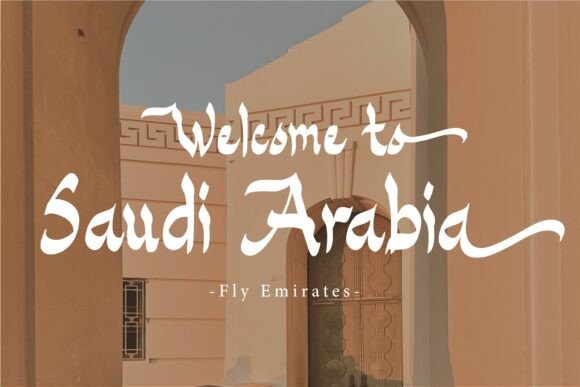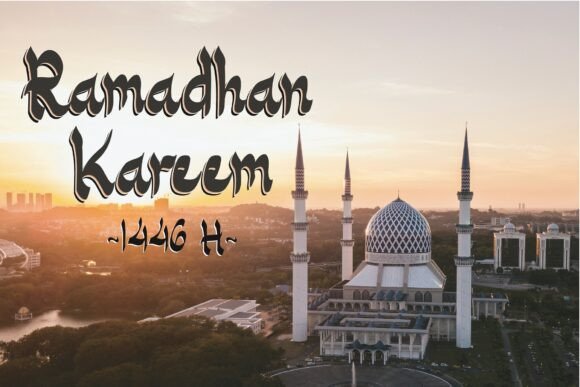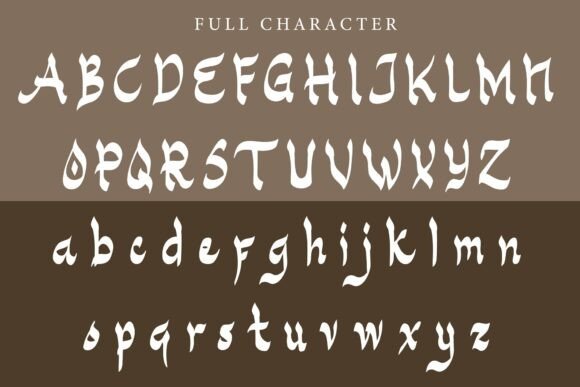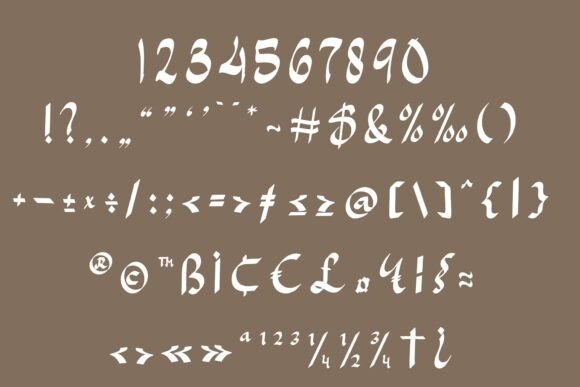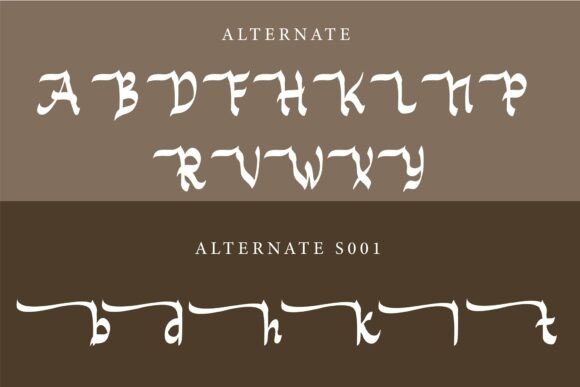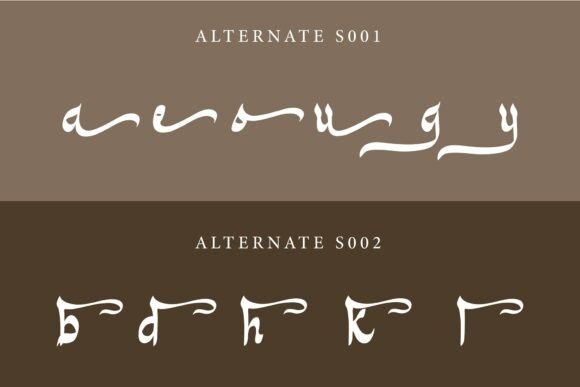
Introducing Arohmany: The Elegant Arabic Font that Bridges Past and Present
In the realm of typography, few fonts manage to capture the essence of cultural heritage while embracing modern stylistic elements. Arohmany, an exquisite Arabic font, stands out as a masterpiece that seamlessly blends classic Arabic calligraphy with contemporary design sensibilities. Crafted meticulously with a calligraphy pen, Arohmany presents an elegant fusion of past and present, making it an ideal choice for a wide range of creative ventures.
The Art of Arohmany: A Calligraphic Masterpiece
Arohmany’s creation is a testament to the art of Arabic calligraphy, a tradition that dates back centuries. The font’s designer has poured their expertise and passion into crafting each character with precision and elegance, using a calligraphy pen to bring the letters to life. The result is a font that exudes sophistication and refinement, perfect for projects that demand a touch of luxury and cultural depth.
A Perfect Blend of Classic and Modern
What sets Arohmany apart is its unique blend of classic Arabic characters and contemporary stylistic elements. The font’s classic roots are evident in its adherence to traditional Arabic calligraphy, while its modern twist is reflected in its clean lines, balanced proportions, and subtle stylistic flourishes. This blend makes Arohmany versatile and adaptable, suitable for a variety of design applications.
Endless Creative Possibilities with Arohmany
Arohmany’s elegance and versatility make it an excellent choice for a multitude of creative projects. Whether you’re designing eye-catching banners, trendy t-shirts, compelling photographic captions, engaging YouTube channels, or impactful advertisements, Arohmany is the perfect fit. Its unique charm and aesthetic appeal will elevate your designs, allowing you to communicate your message with style and sophistication.
Why Choose Arohmany for Your Designs?
- Elegant and Sophisticated: Arohmany brings an air of elegance and sophistication to any design, making it perfect for projects that demand a high level of refinement.
- Versatile: Its blend of classic and modern elements makes Arohmany versatile and adaptable to various design contexts.
- Cultural Depth: Arohmany’s roots in Arabic calligraphy add a layer of cultural depth and authenticity to designs, making it an excellent choice for projects that aim to connect with Arabic-speaking audiences or celebrate Arabic heritage.
- Unique: Arohmany’s distinctive style ensures that your designs stand out from the crowd, capturing attention and leaving a lasting impression.
Tips for Maximizing Arohmany’s Potential
To get the most out of Arohmany, consider the following tips:
- Experiment with Sizes: Arohmany’s clarity and elegance are preserved across various sizes, making it suitable for both large-scale banners and smaller, detailed work like captions or t-shirt designs.
- Play with Colors: The font’s design allows it to complement a wide range of color schemes. Experiment with different colors to find the perfect match for your project’s aesthetic.
- Combine with Other Fonts: Arohmany can be paired with other fonts to create interesting contrasts and hierarchies in your designs. Look for fonts that complement its classic yet modern feel.
Arohmany is more than just a font; it’s a design statement that speaks of elegance, cultural richness, and modern sophistication. By incorporating Arohmany into your creative projects, you’re not only ensuring they stand out visually but also that they carry a piece of Arabic heritage and calligraphic artistry. Whether you’re a designer, crafter, or simply someone who appreciates the beauty of well-crafted typography, Arohmany invites you to explore new creative horizons and let your designs speak volumes.